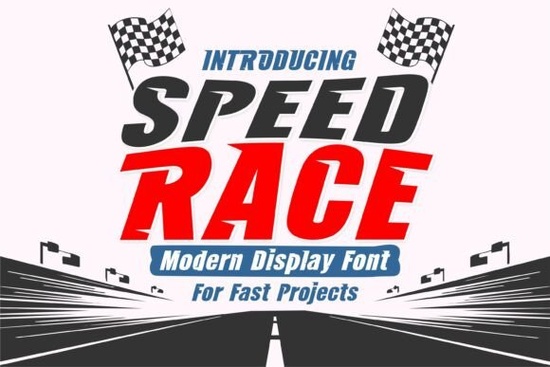
If you’ve ever designed a racing-themed shirt, poster, or birthday invitation and felt like something was missing maybe the font didn’t quite capture that rush of speed then Speed Race Font might be exactly what you’re looking for. It’s built with motorsport energy in mind: bold strokes, dynamic angles, and a sporty vibe that makes your text feel like it’s moving even when it’s standing still.
This isn’t one of those fonts that blends into the background. Whether you’re cutting vinyl for decals, printing on apparel, or laying out digital banners for a local karting event, Speed Race grabs attention without needing extra effects or filters. And if you’ve worked with Cricut or Silhouette machines before, you’ll appreciate how cleanly it cuts no thin lines to break, no tiny details to fuss over.
What kinds of projects work best with this font?
You don’t need to be designing for NASCAR to make good use of Speed Race. Here’s where it really shines:
- Racing team merch jerseys, hats, bumper stickers, pit crew gear
- Kids’ birthday invites especially for car-obsessed little ones who dream of checkered flags
- Wall art and garage signs “Pit Stop,” “Fastest Mechanic Alive,” or custom quotes with horsepower
- Sports logos and badges not just for cars; works great for any high-energy team branding
- Digital thumbnails and social media graphics bold enough to read even at small sizes
It also pairs well with other display fonts if you’re layering styles. Try combining it with something like Frontier Outlaw for a rugged, off-road rally look, or Shark Teeth if you want to add some aggressive edge. For seasonal twists, Sugar Christmas Duo can soften the intensity around the holidays while keeping things playful.
Is it easy to use for beginners?
If you’ve struggled with fonts that look great on screen but fall apart when printed or cut, Speed Race avoids those pitfalls. The spacing between letters is generous enough to prevent crowding, and the weight is consistent no sudden thin spots that vanish under pressure or heat transfer.
How does it compare to similar racing fonts?
There are plenty of “fast-looking” fonts out there, but many rely too heavily on gimmicks flames, skid marks, or overly slanted letters that become hard to read. Speed Race keeps it simple: strong structure, clear letterforms, and just enough motion in the curves to suggest velocity without sacrificing legibility.
For example, Dustero has a grittier, desert-rally feel great for off-road themes but less suited for sleek track racing. Meanwhile, Speed Race leans into polished competition: think Formula 1, not dusty backroads. That doesn’t mean it’s sterile far from it. The slight tapering on certain strokes and subtle asymmetry give it personality without going overboard.
Any tips for getting the most out of it?
Here are a few practical ideas to help your designs pop:
- Add motion blur sparingly. A soft directional blur behind the text can enhance the sense of speed but don’t overdo it. The font already implies movement.
- Use contrasting backgrounds. Dark text on light surfaces (or vice versa) ensures maximum visibility, especially for outdoor or vehicle applications.
- Layer with icons or vector shapes. Pair it with tire tracks, checkered flags, or speedometers for instant theme reinforcement.
- Try all-caps for impact. Lowercase letters are available, but uppercase gives you that championship podium presence.
And remember while Speed Race looks fantastic as a headline or focal point, it’s not meant for paragraphs. Stick to short phrases, titles, or punchy slogans. Save body text for something simpler and more readable.
Whether you’re making gifts, selling products, or just having fun with a new craft idea, Speed Race Font gives you a reliable tool that delivers both style and function. No fluff, no filler just clean, confident typography that moves as fast as your imagination.